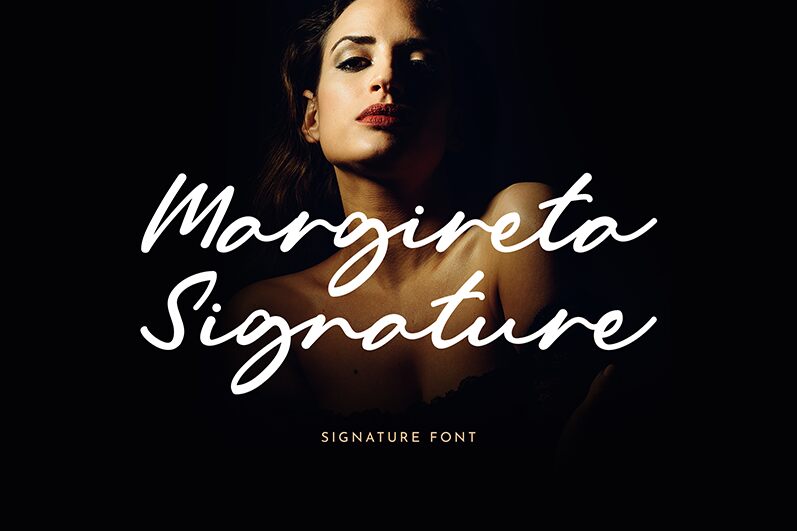
Margireta Signature Script font by UI Creative is a free handwritten typeface that captures elegance, personal flair, and a sophisticated feel. Increase your piece’s sophistication with this font’s organic yet flowing letter formations. Margireta allows your typography design to look expressive but refined at the same time. It is an indispensable addition to anyone’s font collection. Have your logos, merchandise branding, nametags, or other pieces upgraded to an artistic style with this font addition.
With its great expressive power, its use is suitable for quickly enriching headlines, book covers, magazines, packaging, tv screen texts, video game titles, and more. Get creative and use it for any project relating to the beauty, fashion, and design industries where the audience emotional involvement can be achieved to a great extent using the right visual elements.